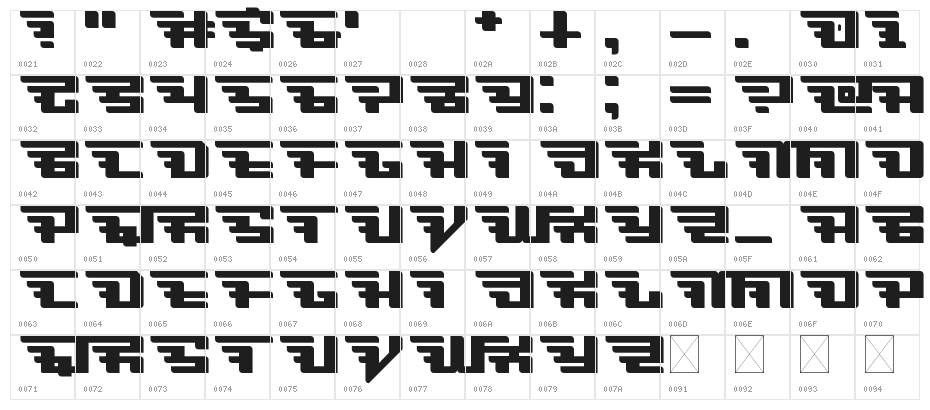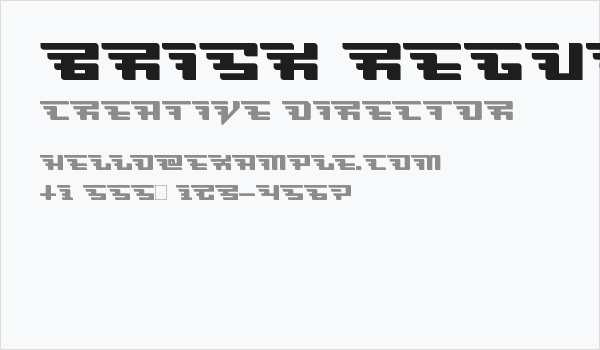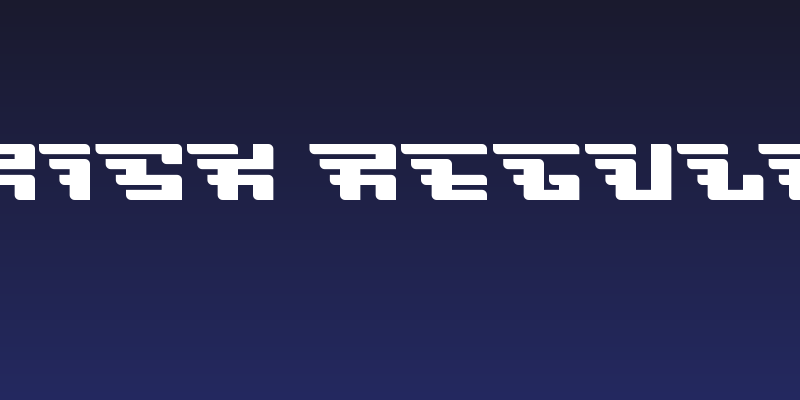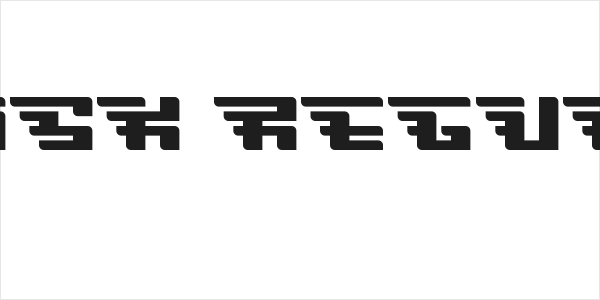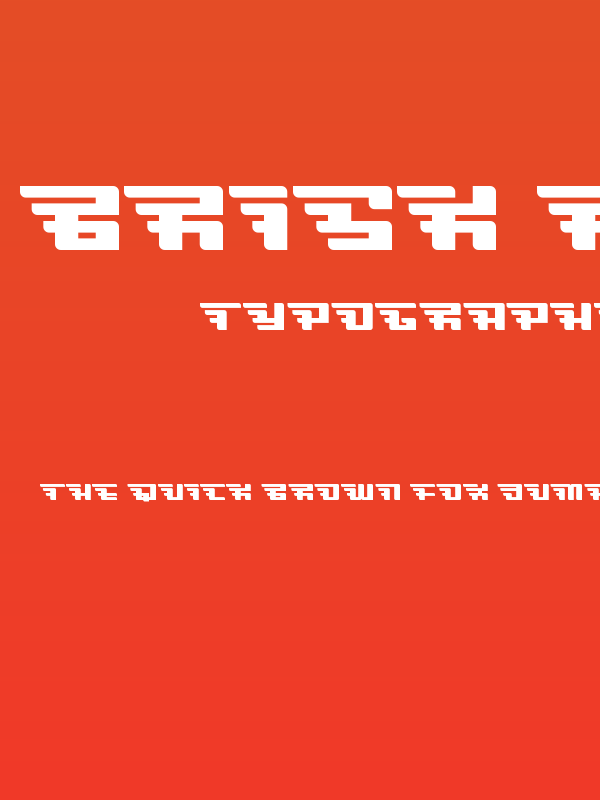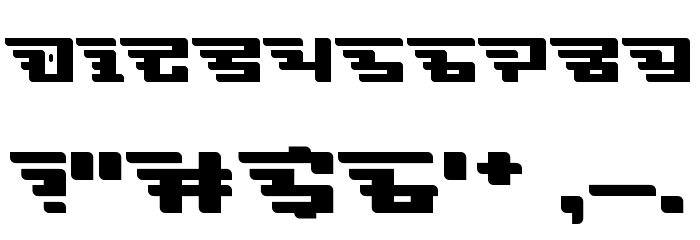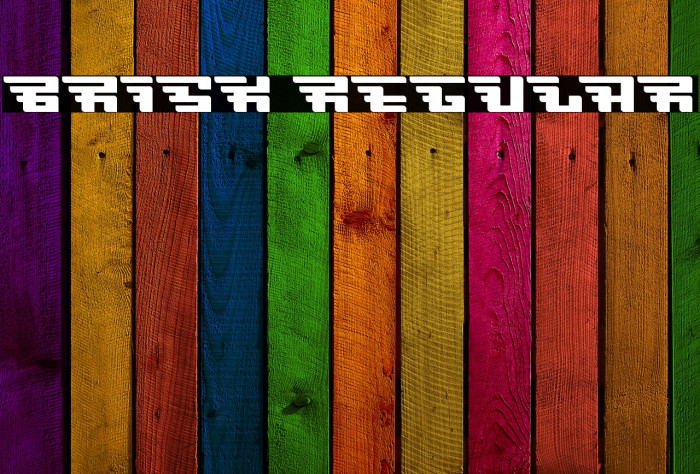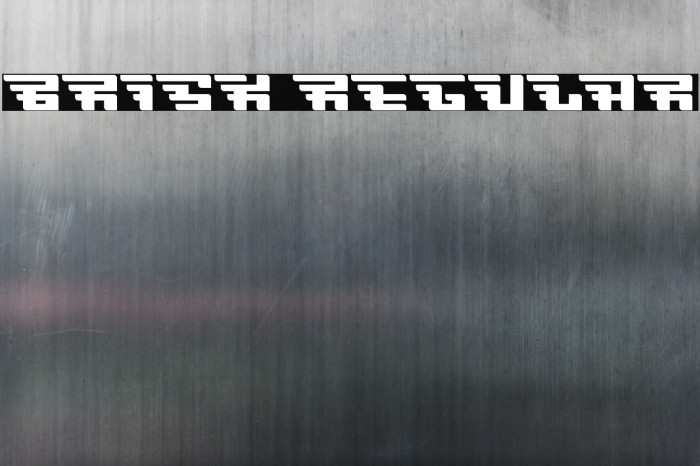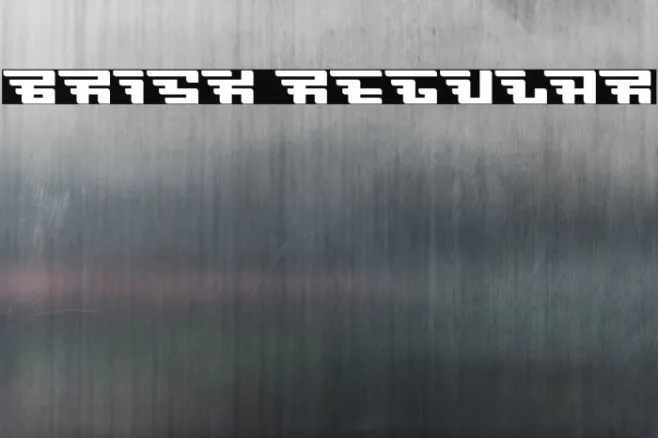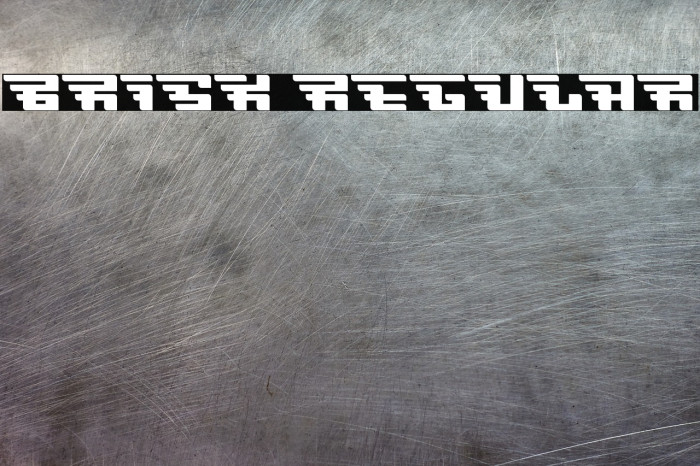
Brisk Regular Font
Brisk Regular Description
This font features a bold, geometric design with a futuristic and digital aesthetic. The characters are constructed with sharp angles and straight lines, giving them a blocky and mechanical appearance. The uppercase and lowercase letters maintain a consistent height, contributing to a uniform look. The numbers and special characters follow the same design principles, ensuring cohesion across all glyphs. The font's style is reminiscent of digital displays or retro video game graphics, making it ideal for projects that require a modern yet nostalgic touch.
| Proposed Projects | Ideal for video game graphics, tech branding, digital displays, and sci-fi themed projects. |